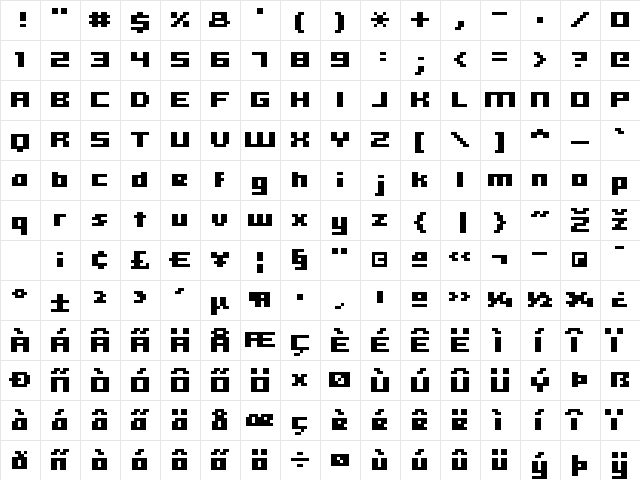
hooge 05_64 Regular
| Designer | Craig Kroeger |
Design Context for hooge 05_64 Typeface
hooge 05_64 is a composed and adaptable typeface that performs quietly and consistently across a wide range of design contexts.